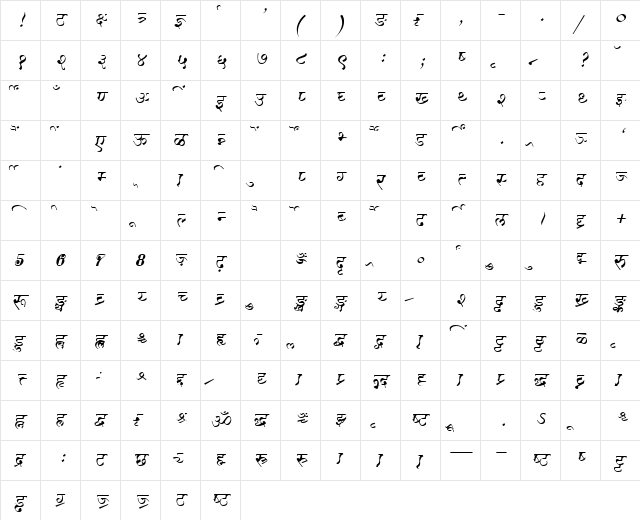
AkrutiDevKalidas NormalItalic
Design Context for AkrutiDevKalidas Typeface
AkrutiDevKalidas is a composed and adaptable typeface that performs quietly and consistently across a wide range of design contexts. The slanted form adds forward momentum and visual energy.
Pro Tip: Use AkrutiDevKalidas for emphasis, pull quotes, and subheadings where its slanted energy can add rhythm to the layout.